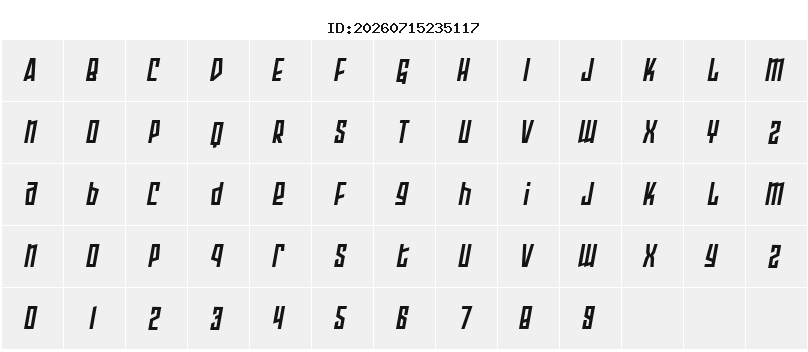
• Font Name: Armor Piercing 2.0 BB
• Font ID: Armor Piercing 2.0 BB
• Full Font Name: Armor Piercing 2.0 BB Italic
• PostScript Name: ArmorPiercing20BBItalic
About Armor Piercing 2.0 BB.ttf
Armor Piercing 2.0 BB.ttf is a modern, elegant sans-serif font designed for ultimate readability and visual harmony. Perfect for branding, headlines, web design, and print materials.